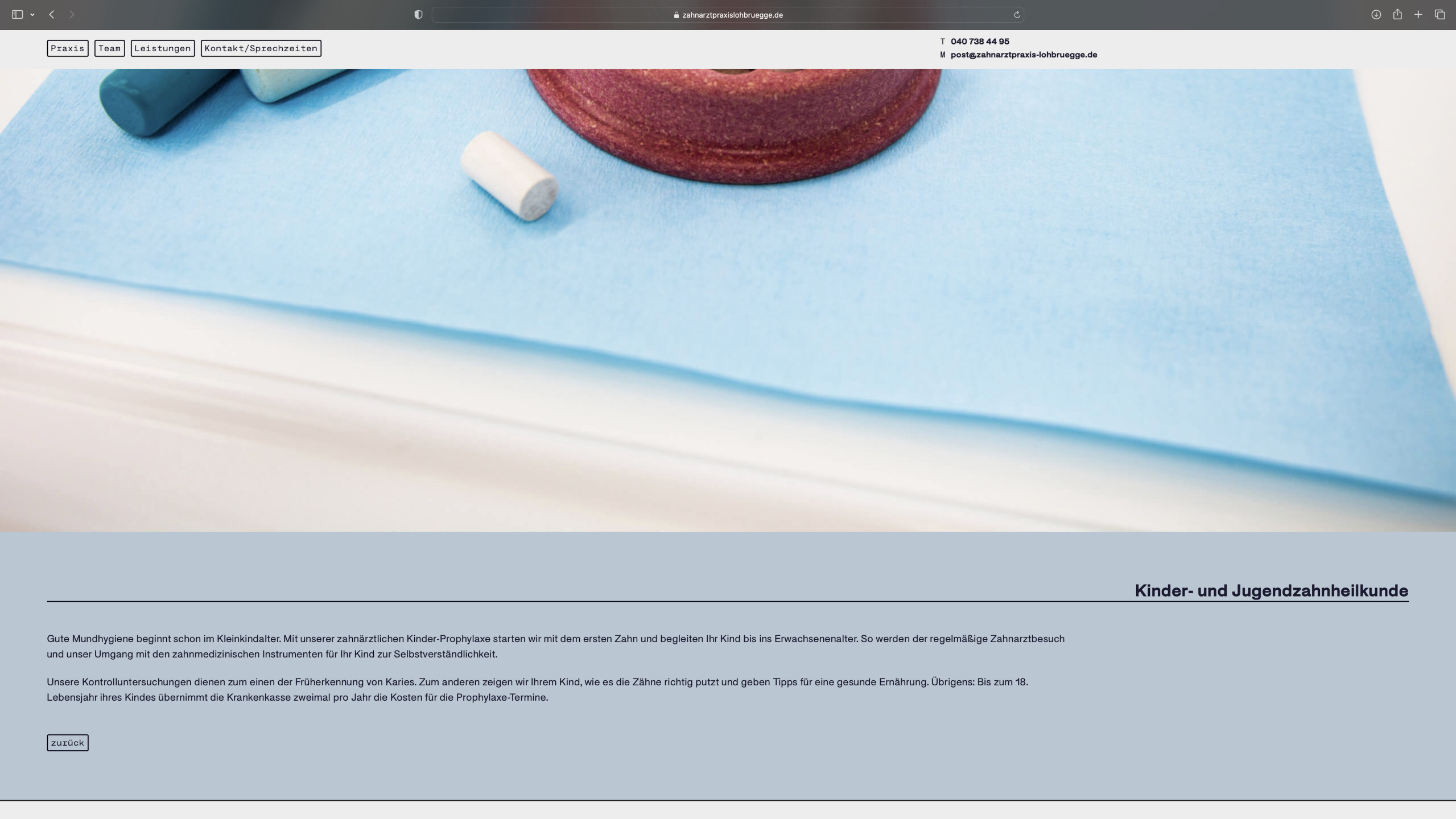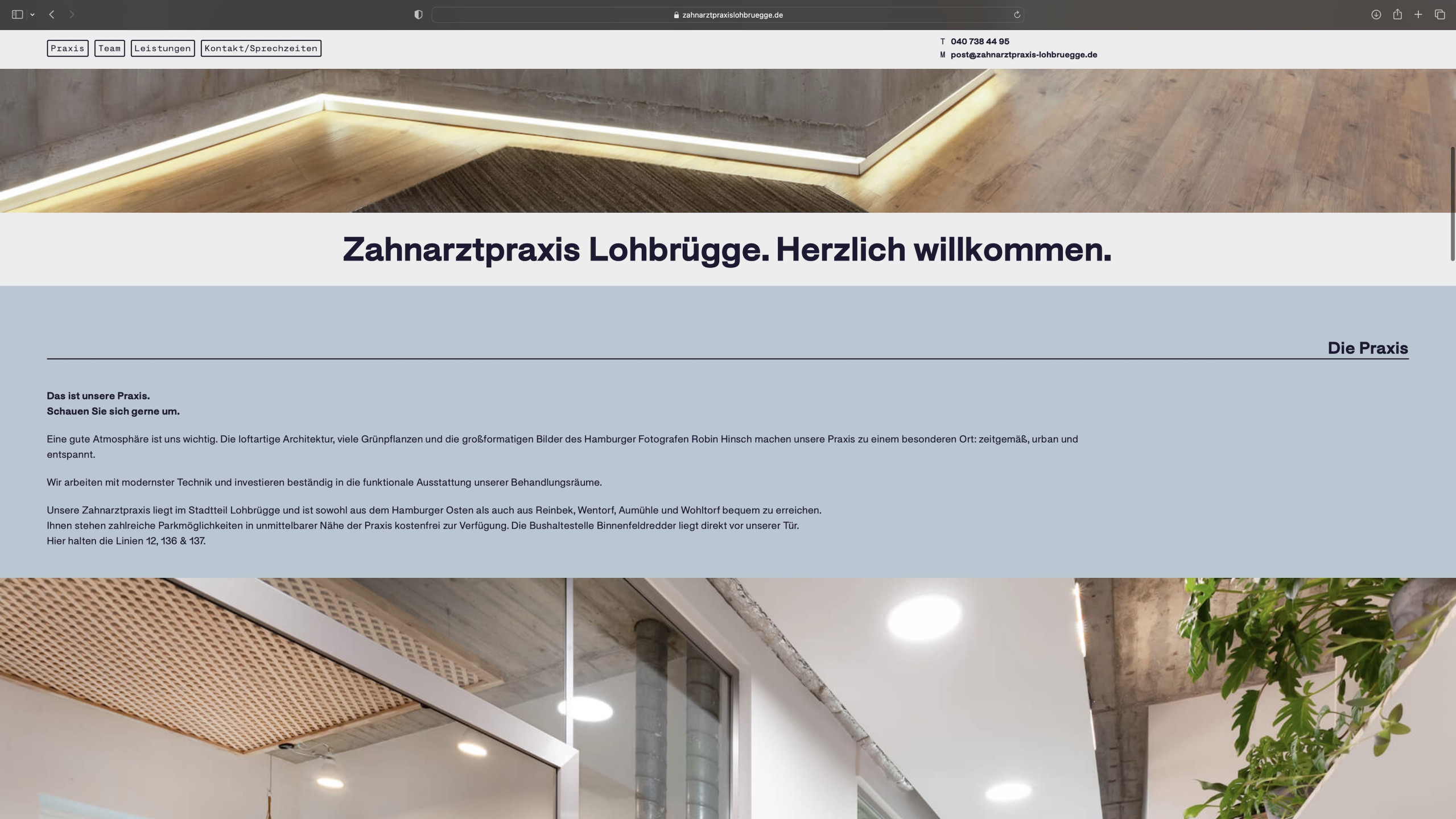
Redesign of the website for the dental practice Lohbrügge — A clear and modern one-pager that appears particularly inviting and appealing due to its muted blue tones.
Typeface: Default Sans by Scott Vander Zee